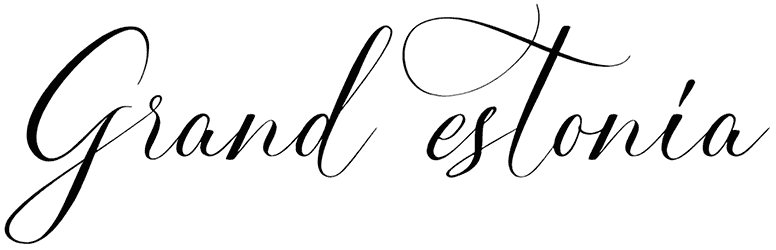
Grand Estonia Font
We would like to introduce a beautiful calligraphy font, Grand Estonia. This certificate font conveys a sense of luxury and modernity. Unfortunately, it doesn’t support any numerals and punctuation, also a bit unreadable. However, you can use it for wedding invitations, branding projects, stationery designs, special events, and magazine covers.